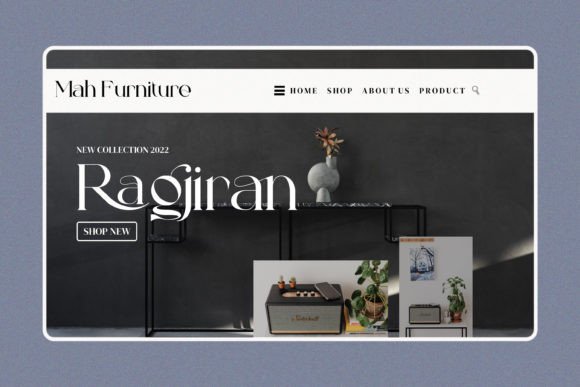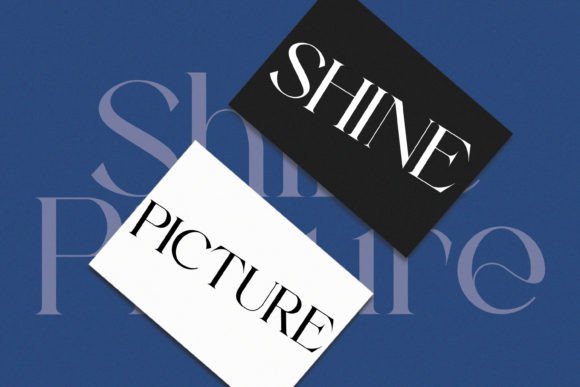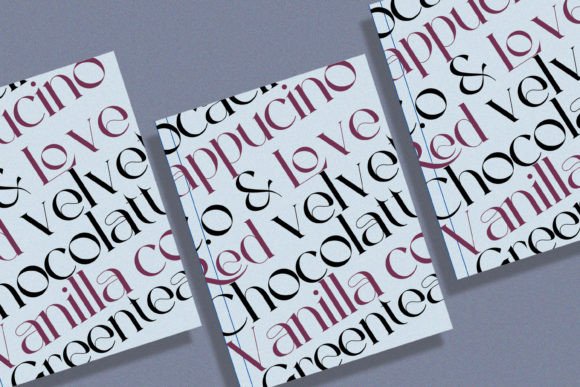
Introduction to Ragjiran Font
Ragjiran is a modern and elegant serif font.
No matter the topic, this font will be an incredible asset to your fonts’ library, as it has the potential to elevate any creation Ragjiran is PUA encoded which means you can access all the glyphs and ligatures with ease.
Ragjiran Font offers exceptional quality and versatility, making it a valuable addition to your design toolkit. Whether you’re creating for personal projects or commercial use, Ragjiran Font delivers professional results.